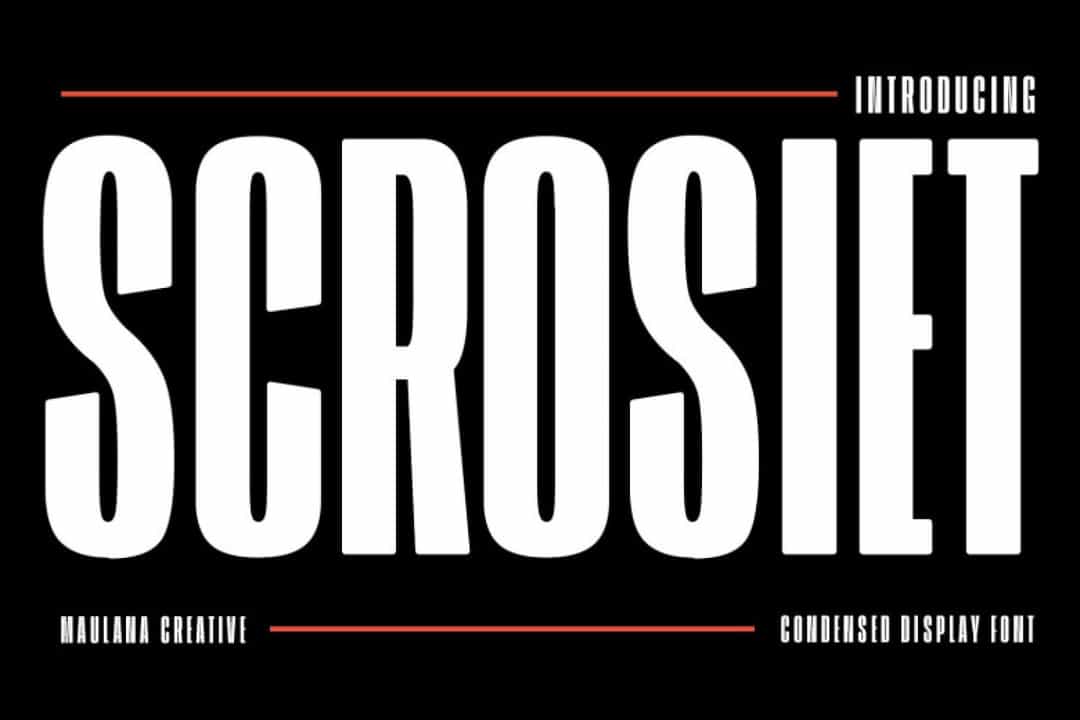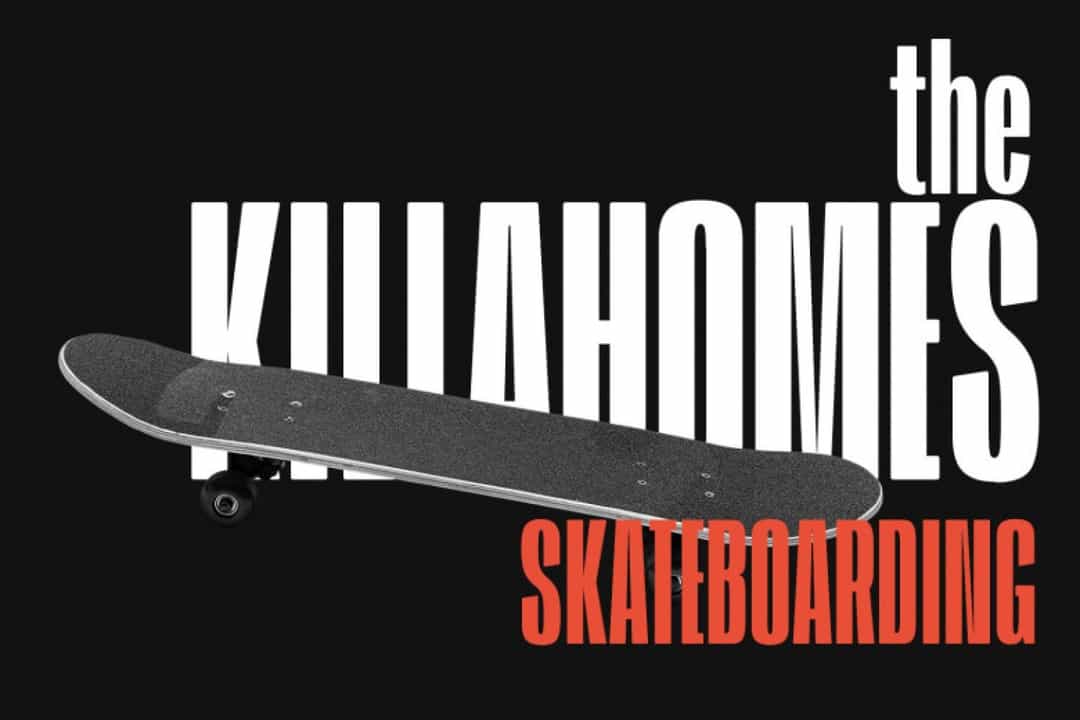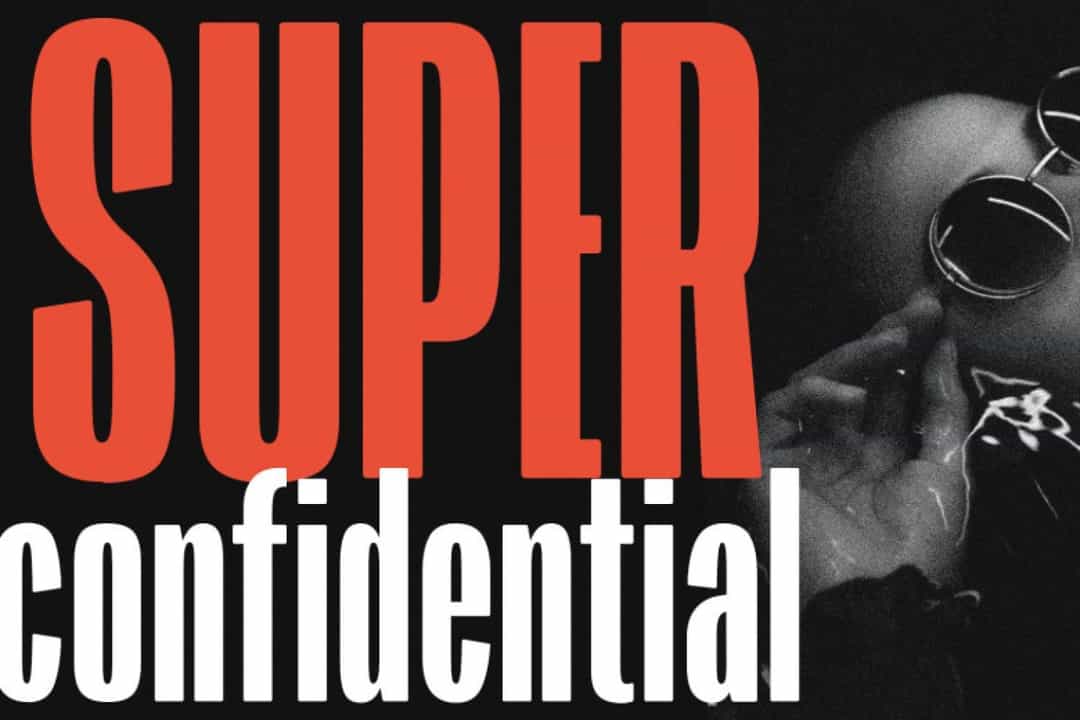
Scorsiet can be described as an updated simplified sans display typeface. It boasts bold strokes with low contrast levels and fun characters with some ligatures and alternative characters for creative work. Furthermore, Scorsiet supports over 100 languages worldwide!